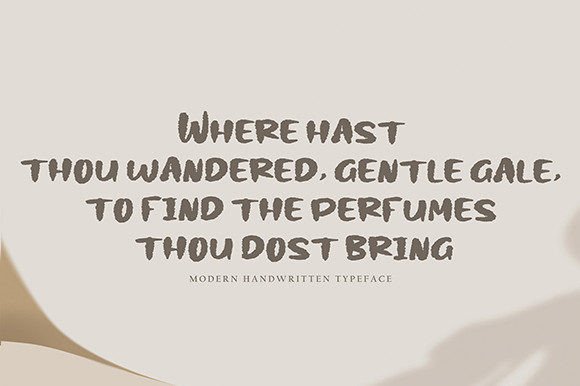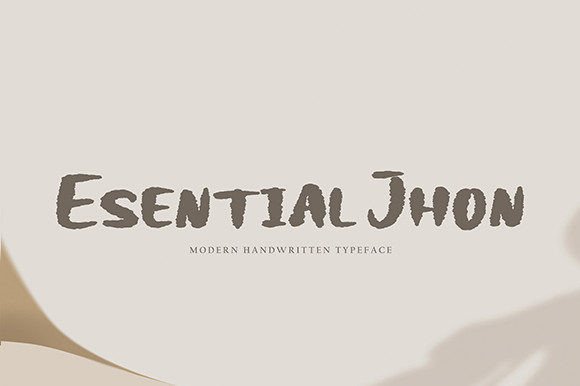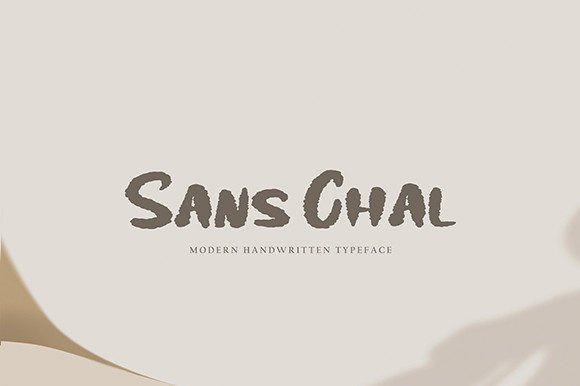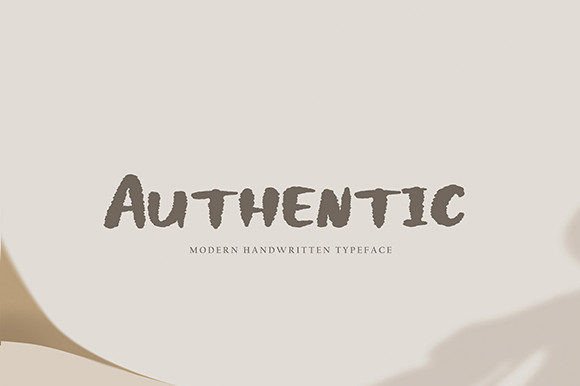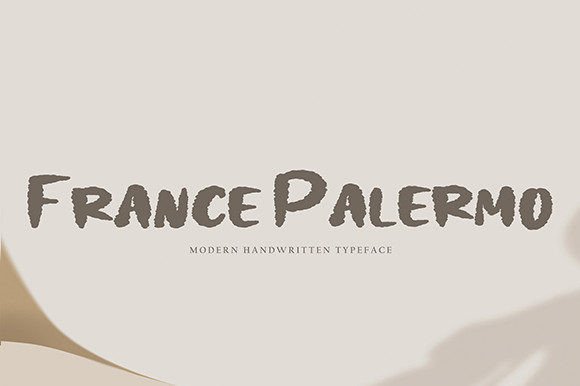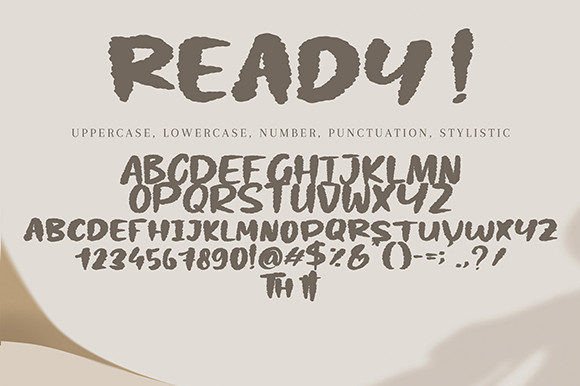
Introduction to Ready Font
Have you ever been stuck in the middle of a design project, struggling to find the perfect font to bring your creative vision to life? You’ve spent hours scouring design resources, searching for that one elusive font that will elevate your project to the next level. Well, we’ve got the solution for you!
Introducing Ready Font, a fun and playful display font that’s sure to add a touch of excitement to any project. With its high-quality design and transparent background, Ready Font is the perfect addition to any creative endeavor. Whether you’re working on a marketing campaign, designing a logo, or creating a social media graphic, Ready Font is a valuable resource that’s sure to deliver results.
Key Features of Ready Font
- High-quality design resource with a transparent background, perfect for creative projects
- Includes a comprehensive character set with support for Latin, Cyrillic, and Greek alphabets
- Perfect for use in logos, branding, and typography-based creative projects
Honest Review: Ready Font
As a designer, I’m always on the lookout for high-quality design resources to elevate my creative projects. Recently, I stumbled upon Ready Font, and I’m excited to share my honest review.
Here are some of the things that work well for Ready Font:
- ✨ The font comes with a transparent background, making it easy to customize and integrate into any design.
- ✨ The font is highly versatile and can be used for a wide range of creative projects, from branding and logos to digital products and marketing materials.
- ⚠️ The font doesn’t offer as many font styles as some other popular fonts on the market.
Overall, I’m impressed with Ready Font’s quality and versatility. While it may not be perfect, it’s a solid choice for designers looking for a free, high-quality font for their creative projects.
Tips for Getting the Most Out of Ready Font
Use the Ready Font in combination with a transparent background to create a clean and modern design. Experiment with different font sizes and styles to add visual interest to your design. Consider pairing the Ready Font with other high-quality design resources to create a cohesive look.
The Ready Font is ideal for a variety of creative projects, including business cards, brochures, and social media graphics. It’s also a great choice for personal projects, such as blog posts and presentations. With its high-quality design and free download option, the Ready Font is a valuable resource for designers and non-designers alike.
Q: Can I use Ready Font with a transparent background?
Yes, Ready Font is designed to be used with a transparent background, making it perfect for use in digital design, logos, and branding. The font’s transparent background allows for seamless integration with other design elements.